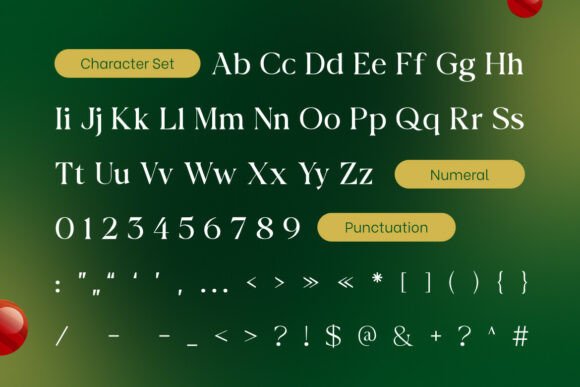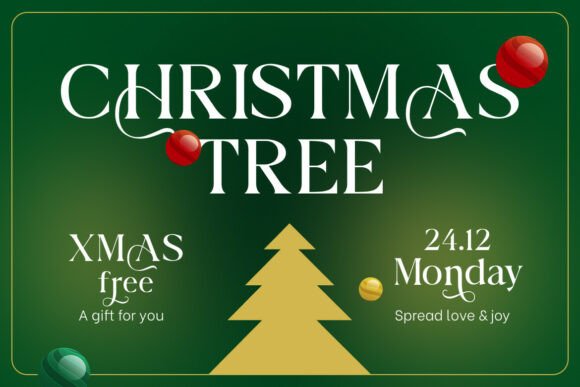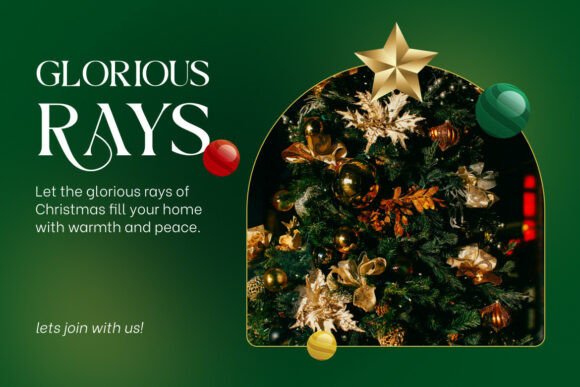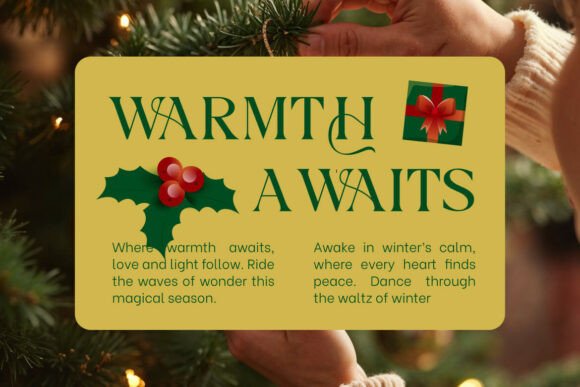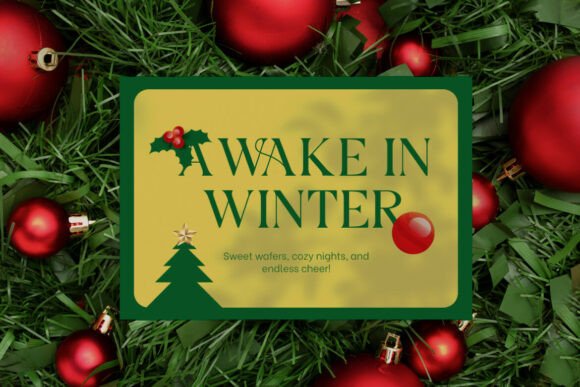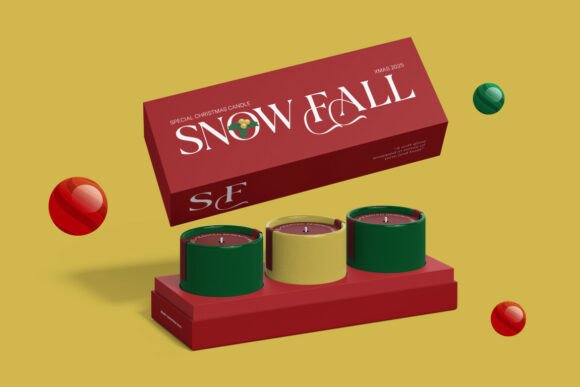
Introducing Harmonia Font: Elevate Your Holiday Designs with Elegance and Sophistication
The holiday season is a time for joy, celebration, and creating unforgettable experiences. As a designer or crafter, you’re likely always on the lookout for the perfect typography to add a touch of magic to your projects. That’s where Harmonia Font comes in – a stunning serif typeface designed to evoke the festive elegance of Christmas and make your designs shine.
The Essence of Harmonia Font
Harmonia is more than just a font – it’s an experience. Crafted with precision and passion, this beautiful typeface combines classic sophistication with modern flair, making it the perfect choice for a wide range of applications, from Christmas branding and packaging to greeting cards and editorial design.
At the heart of Harmonia lies a refined letterform that exudes timeless charm. Its serif design pays homage to traditional typography, while subtle decorative swashes add a touch of modernity and whimsy. The result is a font that feels both nostalgic and fresh, perfect for capturing the essence of the holiday season.
What Makes Harmonia Font So Special?
So, what sets Harmonia apart from other fonts? Here are just a few reasons why this typeface is sure to become your go-to for holiday designs:
- Festive Elegance: Harmonia is specifically designed to evoke the magic of the holiday season. Its elegant letterforms and decorative swashes add a touch of luxury to every project.
- Timeless Charm: While Harmonia is undoubtedly modern, it also pays homage to traditional typography. This makes it perfect for designers who want to create designs that feel both classic and contemporary.
- Versatility: Whether you’re working on a Christmas branding campaign, designing festive packaging, or creating holiday greeting cards, Harmonia is the perfect choice. Its versatility ensures that it will look stunning in a wide range of applications.
- Easy to Use: Despite its sophisticated design, Harmonia is incredibly easy to use. Its clean lines and intuitive letterforms make it simple to create beautiful, professional-looking designs.
How to Use Harmonia Font in Your Designs
Ready to add a touch of Harmonia to your holiday designs? Here are a few ideas to get you started:
- Christmas Branding: Create a lasting impression with Harmonia. Use it to craft stunning logos, letterheads, and business cards that capture the essence of the holiday season.
- Festive Packaging: Add a touch of luxury to your holiday packaging with Harmonia. Its elegant letterforms and decorative swashes are sure to make your products stand out.
- Greeting Cards: Create beautiful, heartfelt holiday greeting cards with Harmonia. Its classic sophistication and modern flair make it perfect for both traditional and contemporary designs.
- Editorial Design: Use Harmonia to add a touch of festive elegance to your editorial designs, from holiday-themed magazines to seasonal blog posts.
Harmonia Font is a game-changer for designers and crafters looking to add a touch of festive elegance to their holiday projects. Its refined letterforms, subtle decorative swashes, and timeless charm make it the perfect choice for a wide range of applications. Whether you’re working on Christmas branding, packaging, greeting cards, or editorial design, Harmonia is sure to elevate your designs and leave a lasting impression.